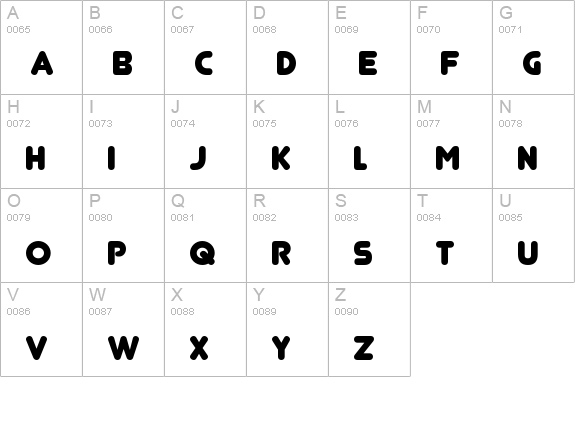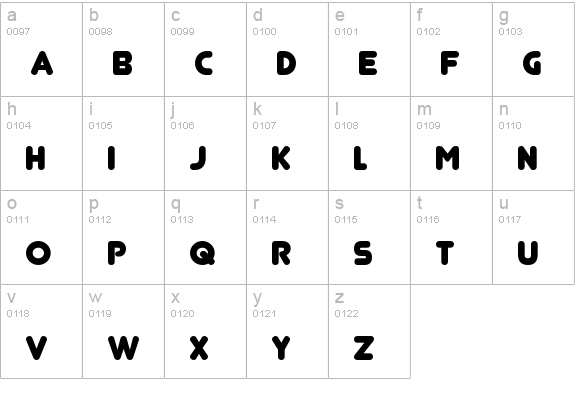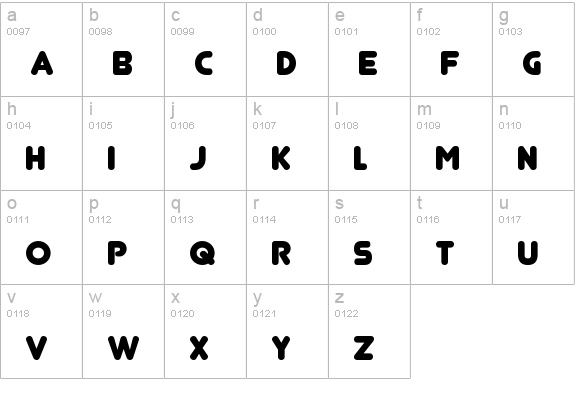
Junegull Font Details
Introducing Junegull font, a modern and elegant typeface that exudes sophistication and charm. With its sleek lines and stylish curves, Junegull is perfect for creating eye-catching designs that demand attention. This versatile font is ideal for a wide range of projects, from branding and advertising to invitations and social media graphics. What sets Junegull apart is not only its stunning aesthetics but also the fact that it is completely free to download. Yes, you read that right - Junegull is available for free at FontsMarket.com. So go ahead and elevate your designs with this exceptional font without breaking the bank. Download Junegull today and unleash your creativity!